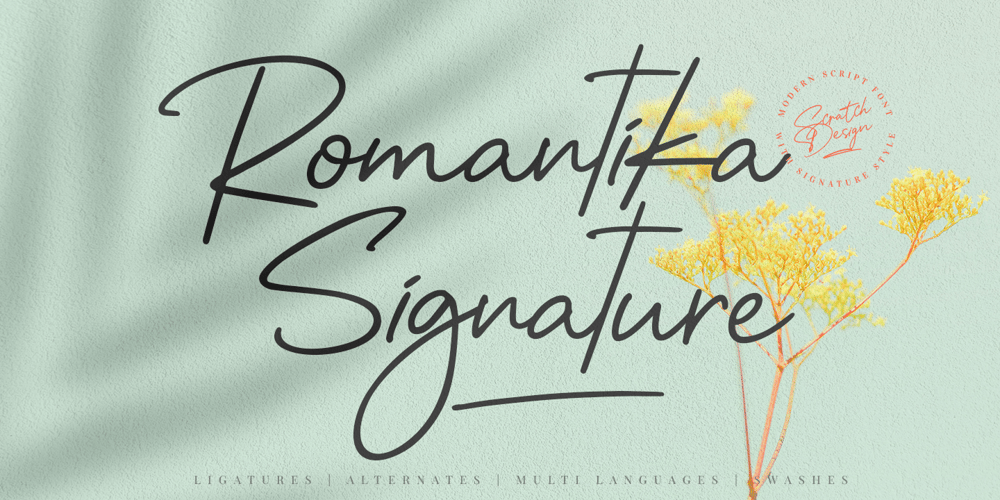
Romantica Signature
Romantica Signature font
Romantica Signature Font Family was designed by Gitayogi Irhandi and published by Scratch Design. Romantica Signature contains 1 styles and family package options. Introducing RomantiKa Signature! It’s a modern script font with a signature style look. It’s very recommended for you who want to make some designs with natural handwriting with signature style. Romantika will work for name card design, invitation design, wedding design, poster, packaging, book cover title, quote, social media post, etc.Just open your Opentype features ( Minimum Compatible with Adobe Photoshop CS 6 and Adobe Illustrator CS 6 ) while using the script font to use the ligatures, stylistic alternates, and swashes. As you type, your text will look like a natural signature or handwriting.